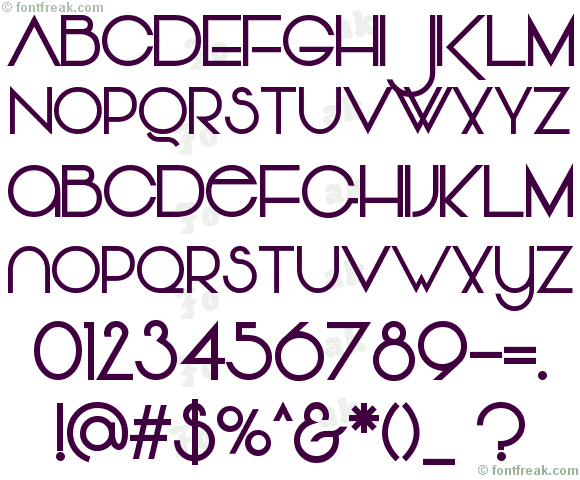
About Vonique 64
Vonique 64, designed by Sharkshock, is a captivating display font that showcases a unique blend of modern aesthetic and bold character. This font falls under the category of sans-serif, characterized by its clean lines and lack of decorative strokes, making it versatile for various applications. The stroke weight is consistent, providing a strong visual presence, while the spacing is well-balanced, ensuring readability at different sizes. The italic variant adds a touch of dynamism, making it perfect for eye-catching headlines and promotional materials.
This font excels in several specific use cases. It is an excellent choice for wedding invitations, where its elegant yet contemporary style can enhance the overall theme. Additionally, Vonique 64 is ideal for movie posters, giving a modern flair that captures attention. Restaurant menus can benefit from its boldness, making dish names stand out and enticing diners. Furthermore, graphic designers can utilize this font for branding projects, as it conveys professionalism and creativity. Small business owners looking to create striking marketing materials will also find Vonique 64 to be a strong asset.
Targeting graphic designers, small business owners, and content creators, Vonique 64 provides a fresh option for those seeking to make an impact. Its versatility and boldness cater to a wide range of design needs, allowing users to express their creativity without compromise.
What truly sets Vonique 64 apart is its ability to blend modernity with elegance, making it suitable for both formal and casual projects. Its bold and italic styles offer dynamic options for any design, ensuring that your message is not only conveyed but also visually compelling. With the Vonique 64 font free download, you can easily elevate your design projects and captivate your audience.